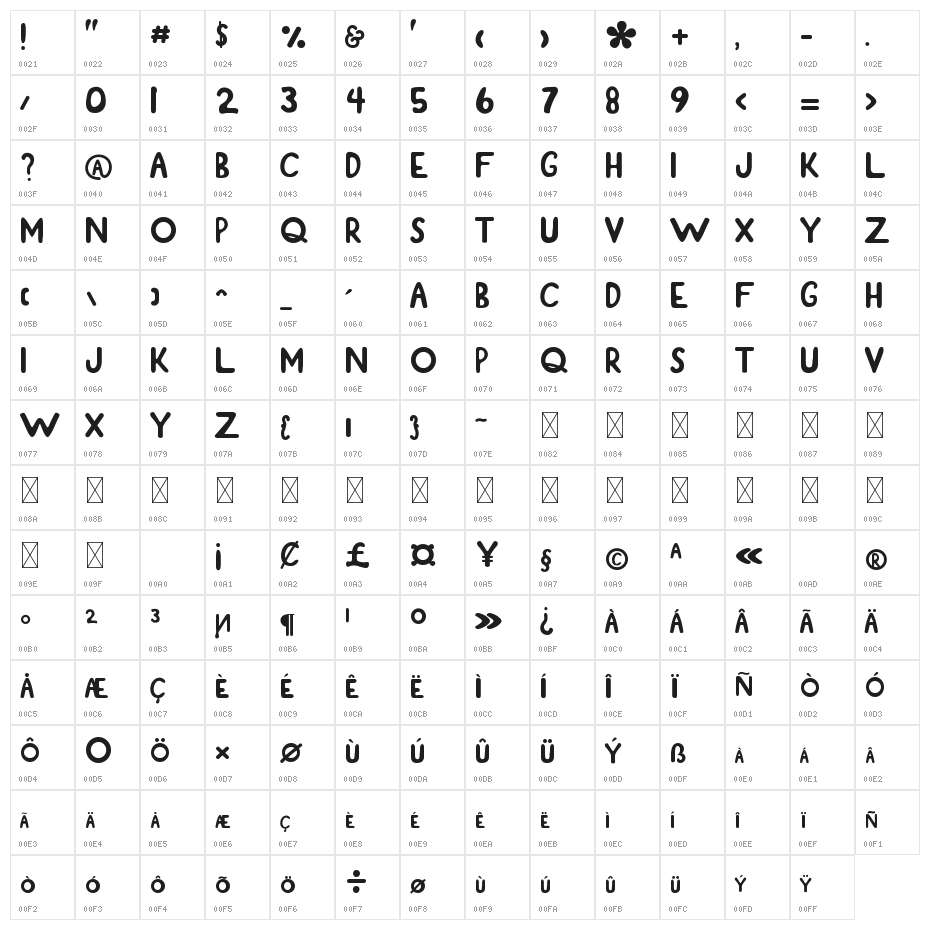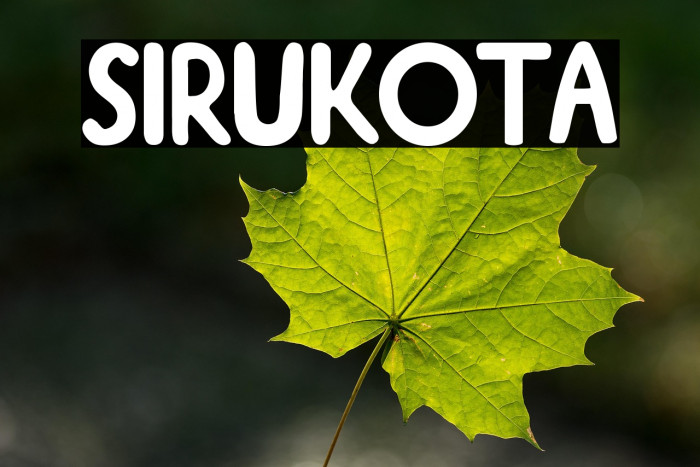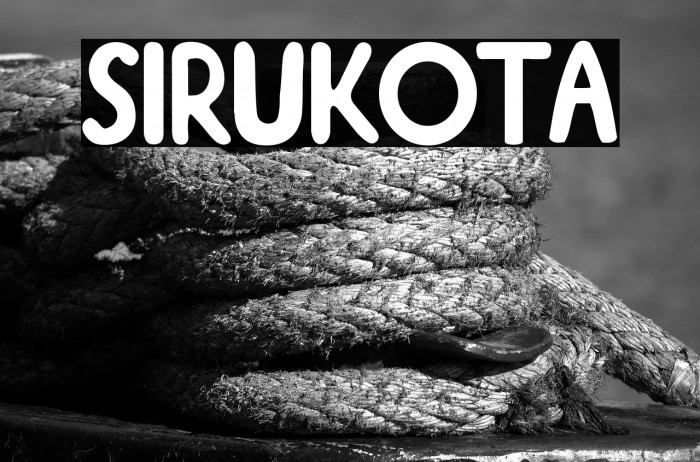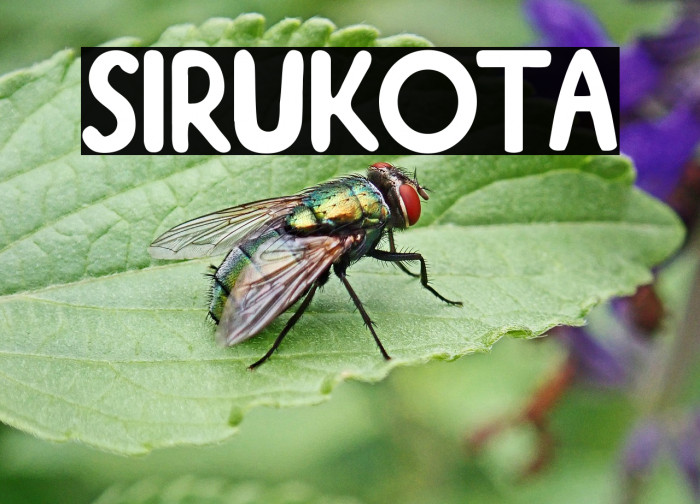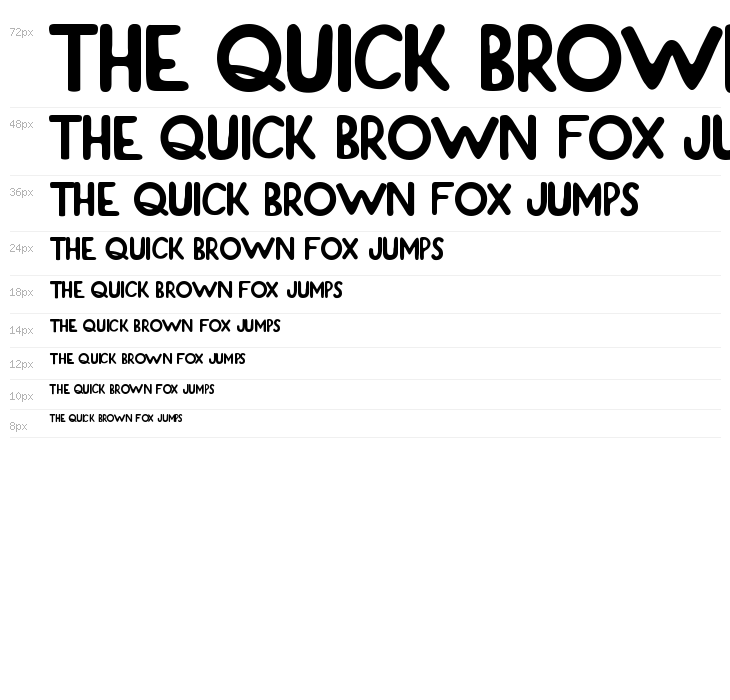
Sirukota Font
Sirukota Description
This font features a playful and bold design with rounded edges and a smooth, flowing style. The characters are uniformly thick, giving a sense of consistency and balance. The uppercase and lowercase letters maintain a cohesive look, with the lowercase letters slightly smaller but equally bold. Numbers and special characters follow the same design principles, ensuring a harmonious appearance across all elements. The font's rounded and friendly aesthetic makes it approachable and engaging, suitable for a variety of creative projects.
| Proposed Projects | Ideal for children's books, playful branding, posters, and social media graphics. |